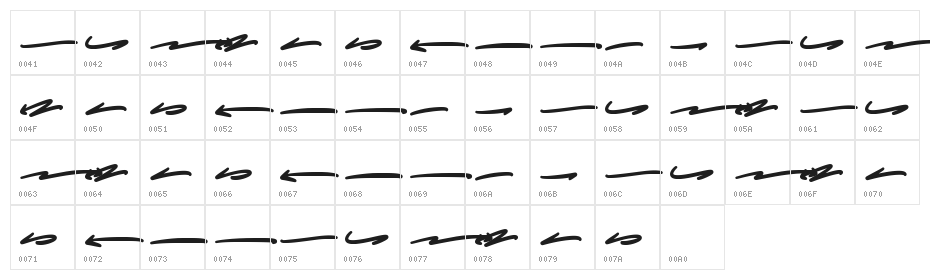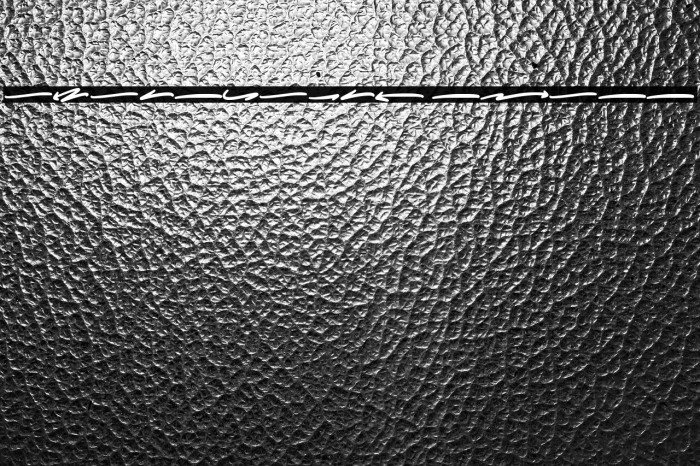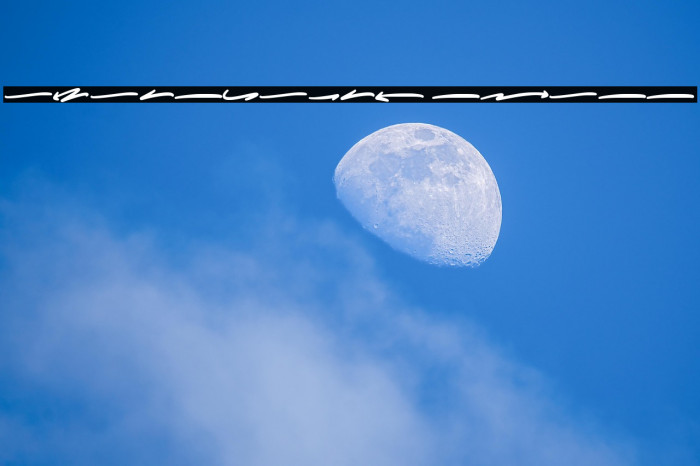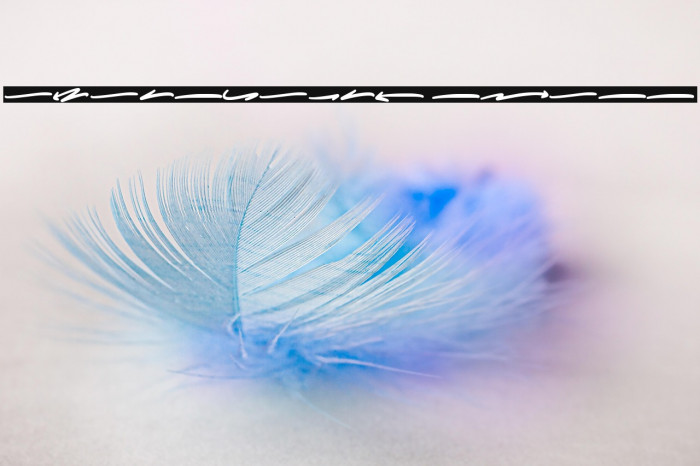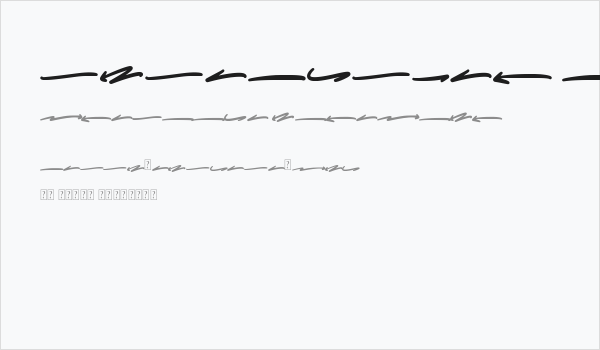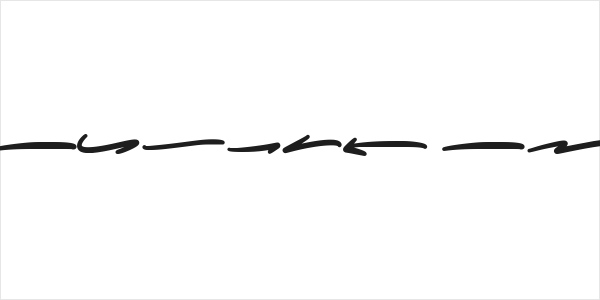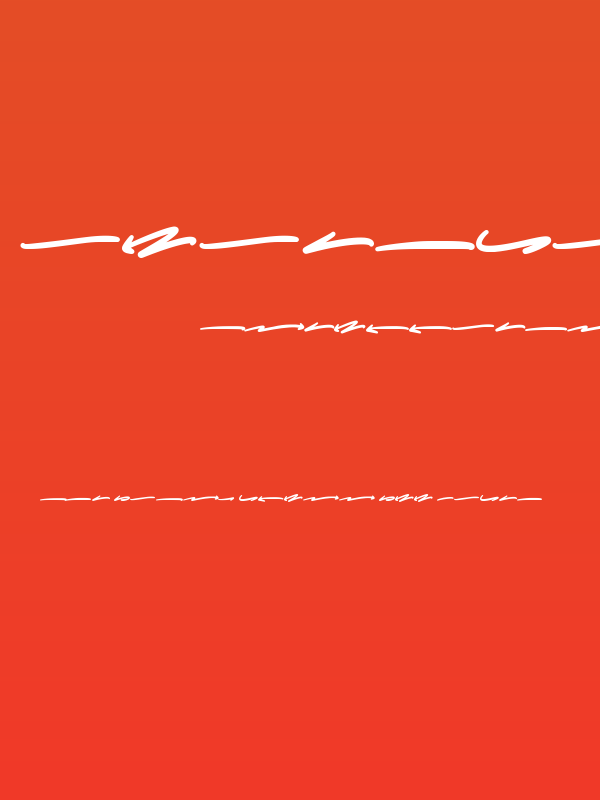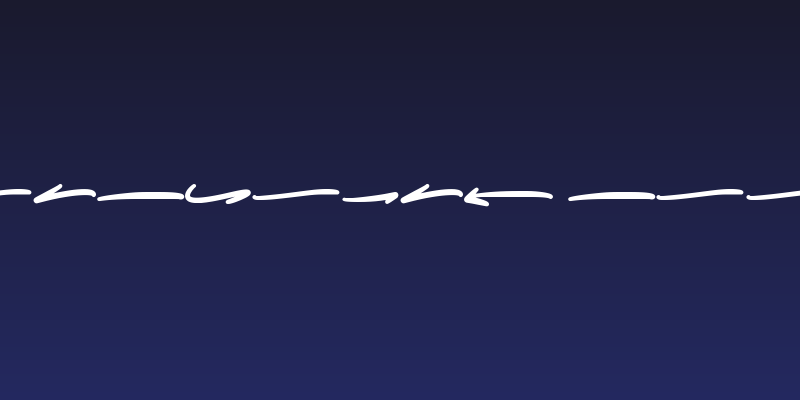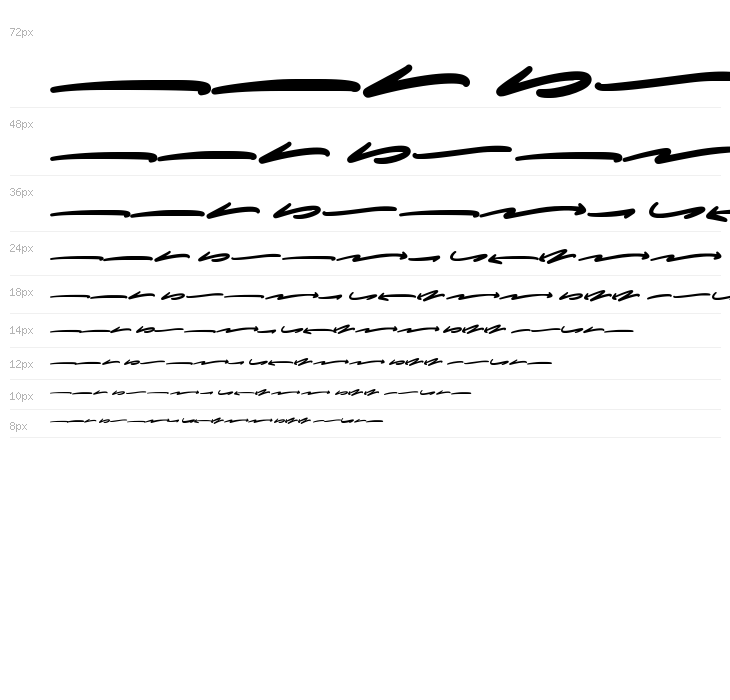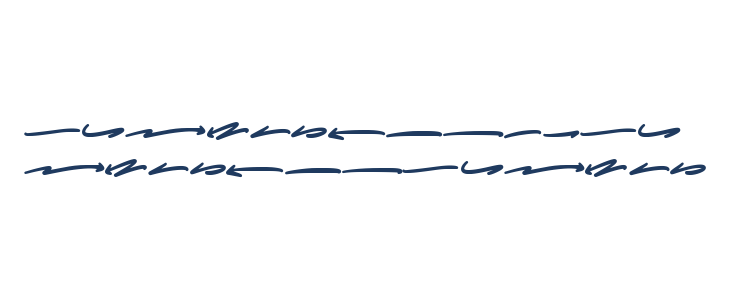
Wolesmaker Swash Font
Wolesmaker Swash Description
This font features a unique and playful design, characterized by its swash elements that give it a whimsical and artistic flair. The strokes are fluid and dynamic, creating a sense of movement and energy. Each character is crafted with a sense of individuality, making it stand out with its decorative style. The font's overall appearance is both elegant and casual, making it suitable for creative projects that require a touch of personality and charm. Its distinctive style is perfect for adding a creative twist to any design.
| Proposed Projects | Ideal for invitations, greeting cards, artistic branding, and creative posters. |